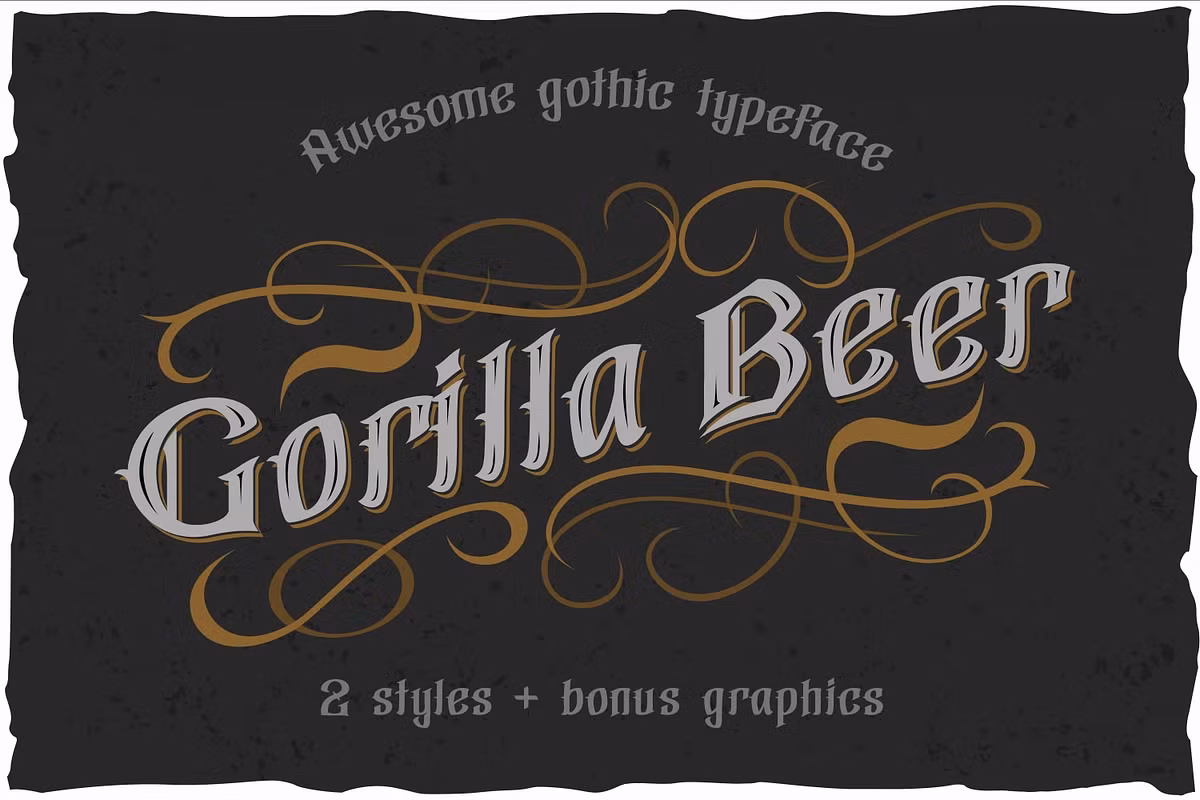
Gorilla Beer - Gothic Typeface Free Download
Gorilla Beer - Gothic Typeface Free Download is a bold and rugged typeface that fuses gothic tradition with a raw, urban edge. Featuring sharp serifs, high contrast strokes, and a heavy blackletter influence, this font is perfect for craft beer branding, music posters, biker merchandise, tattoo-inspired designs, and edgy apparel labels.
Gorilla Beer delivers attitude and authority, making your typography stand out with power and grit. Its handcrafted gothic style is both rebellious and refined—ideal for designers looking to make a dramatic impact while staying rooted in classic lettering heritage.